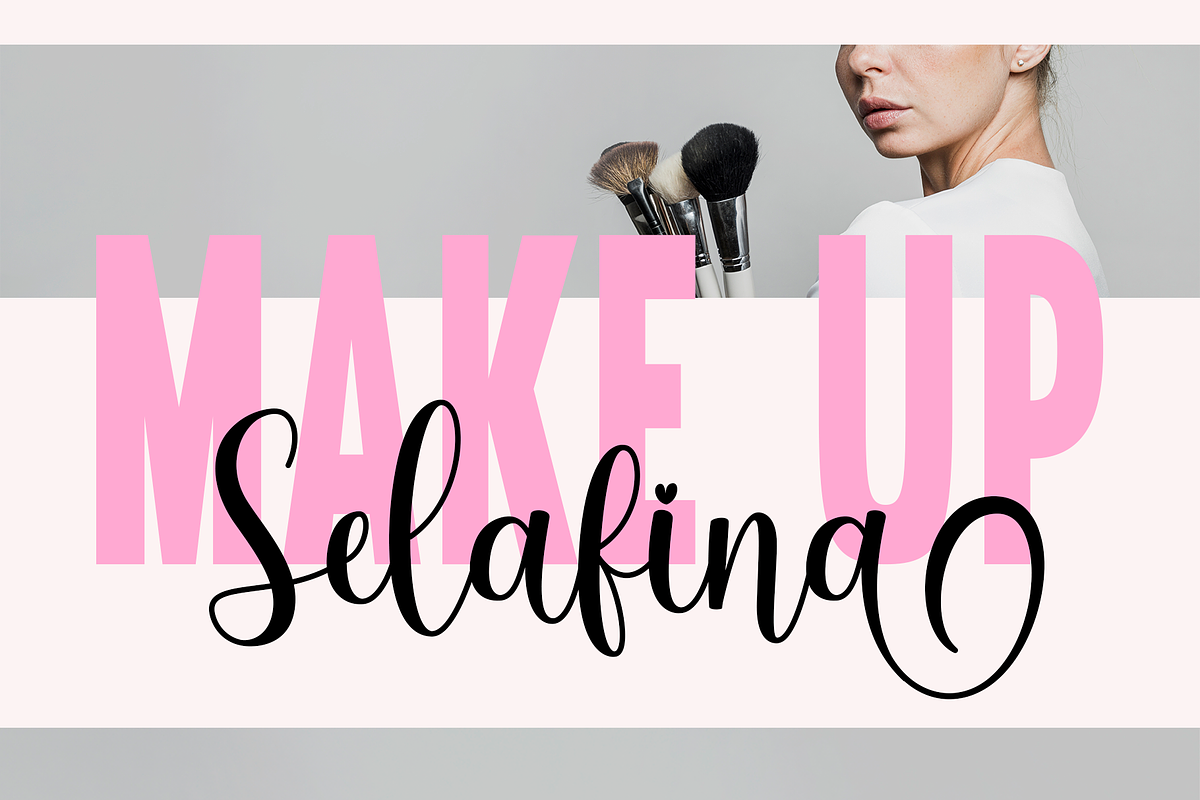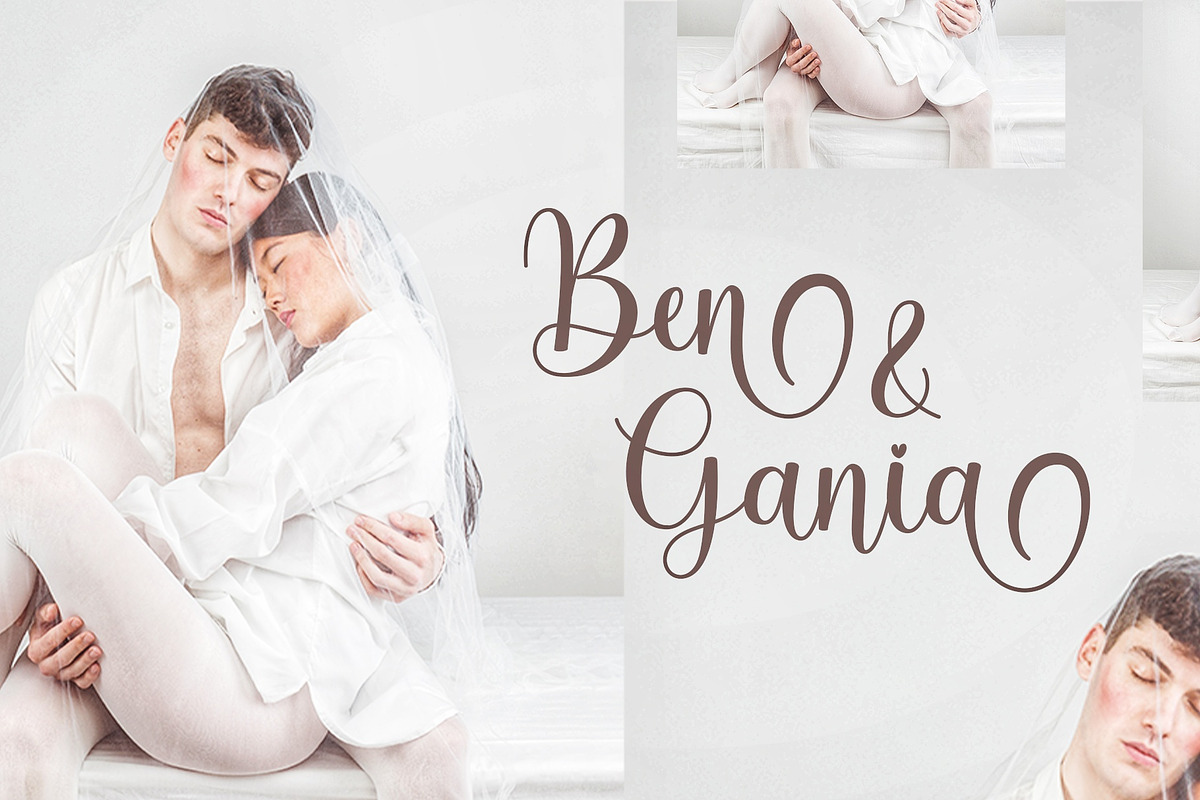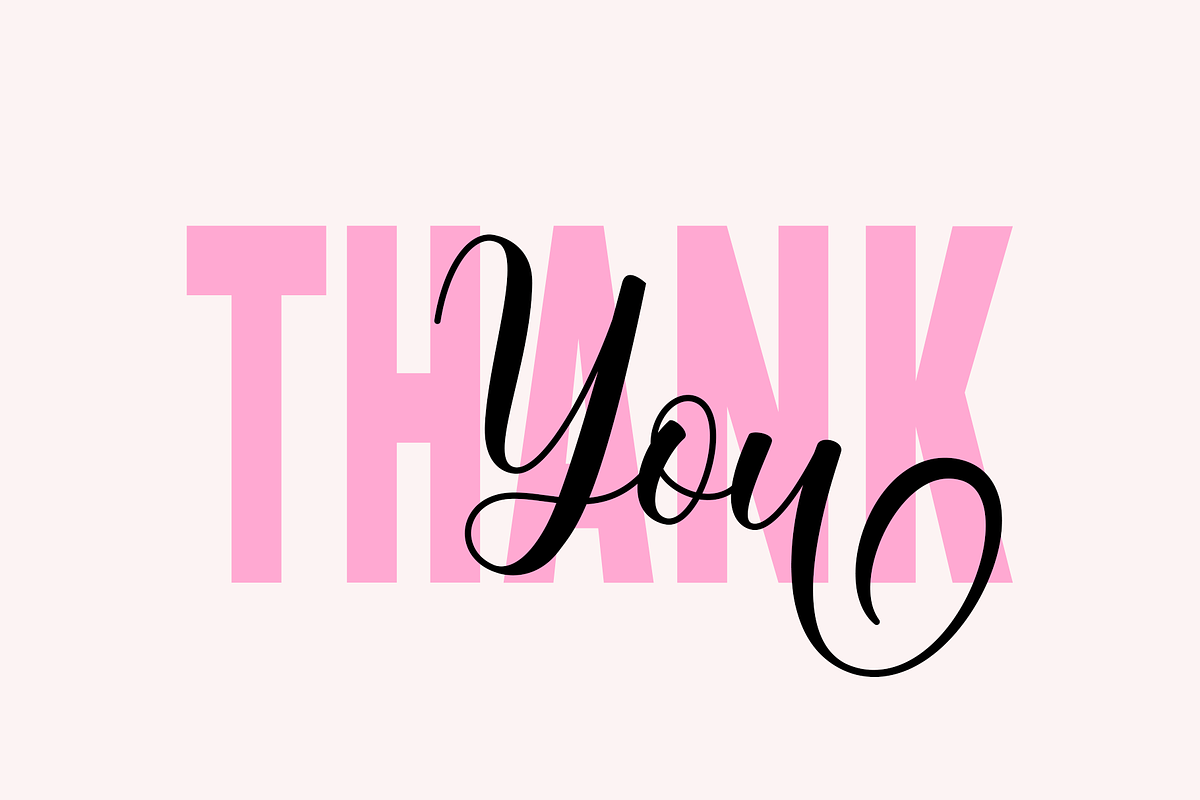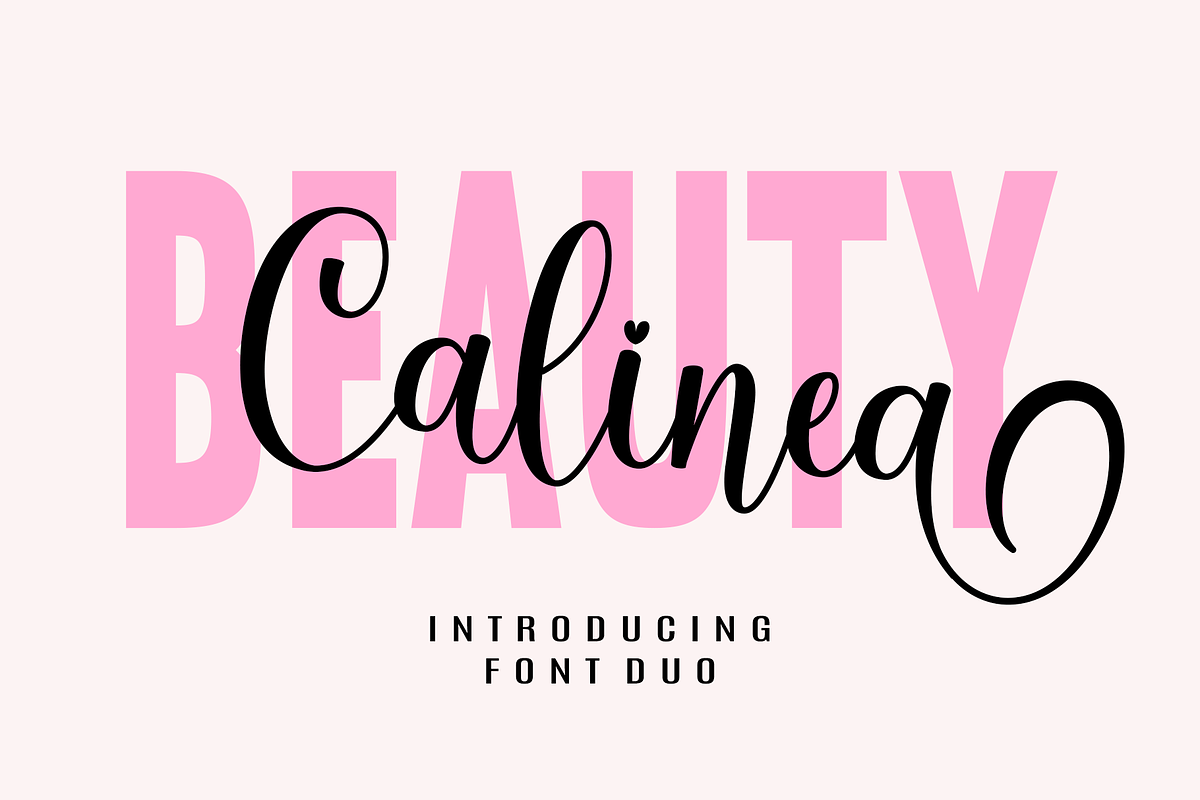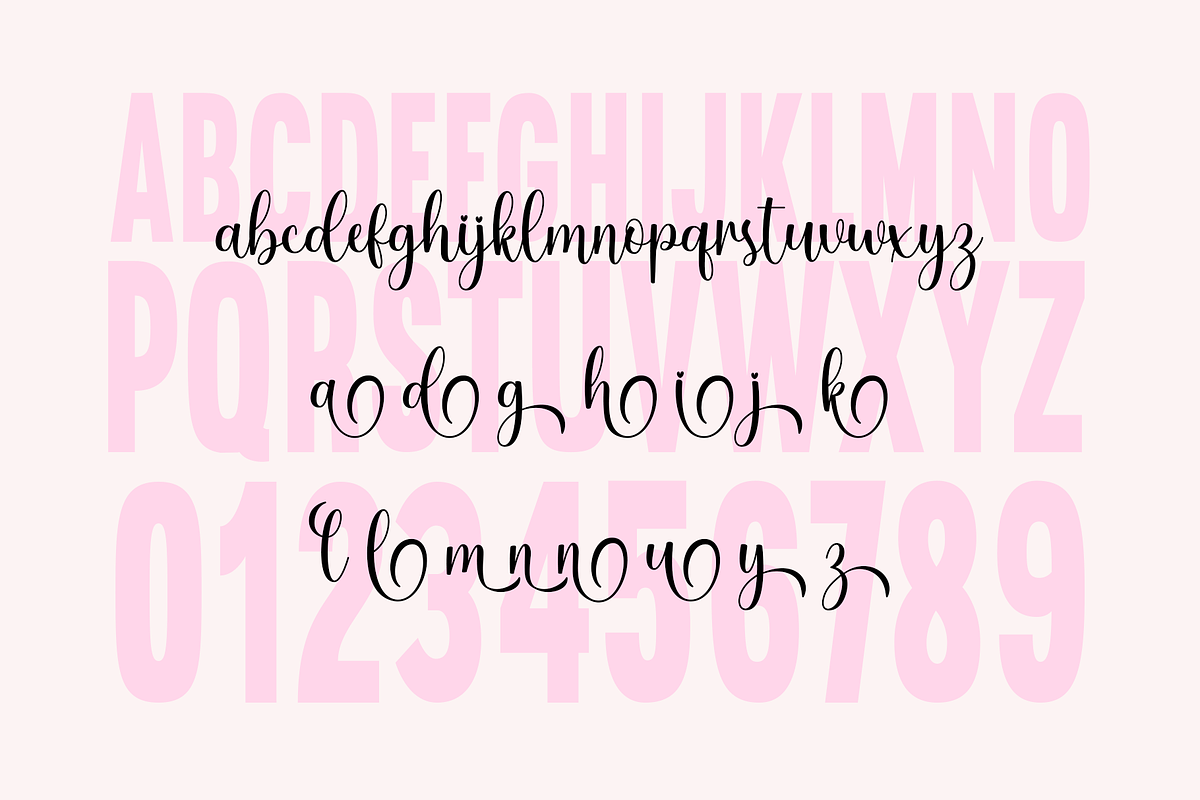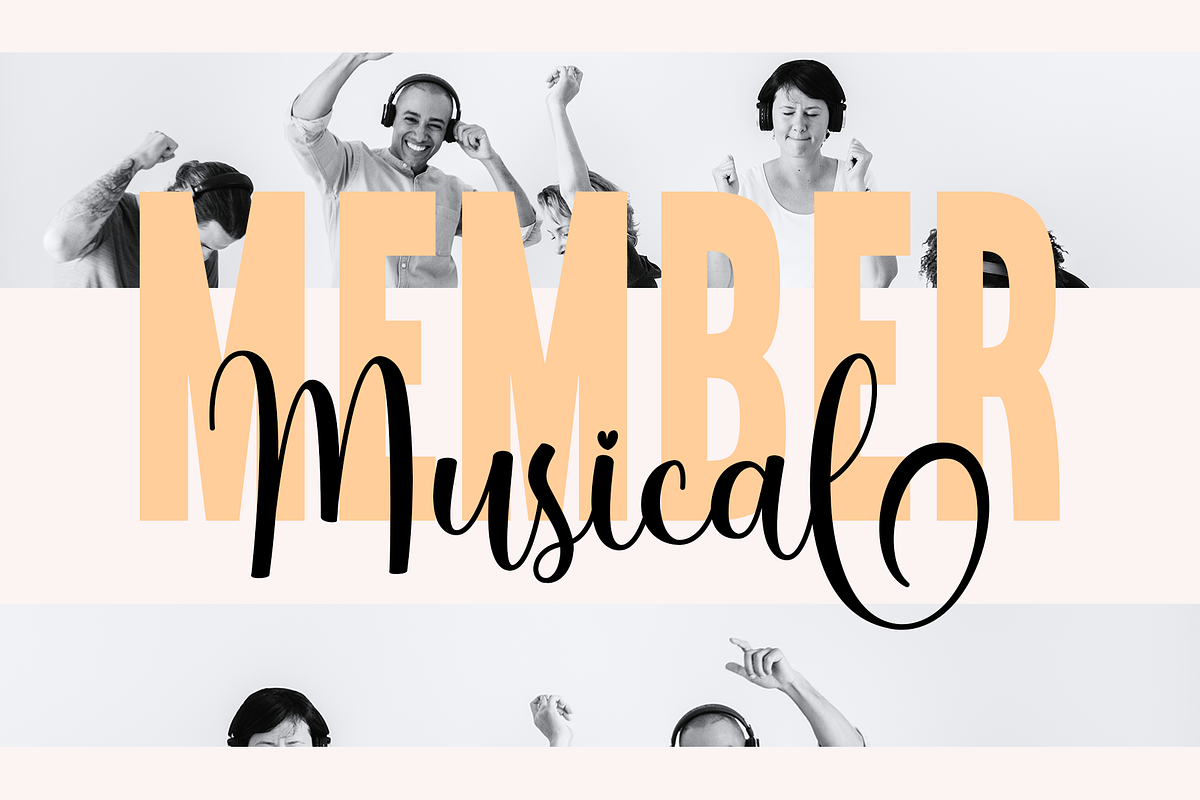
Beauty Calinea
Calinea is a stunning font duo that perfectly combines the elegance of a modern script display font with the bold simplicity of a clean sans serif. Its flowing, hand-lettered script features graceful curves, subtle stroke contrast, and a playful heart accent in its lettering, adding a romantic and sophisticated flair to any design.